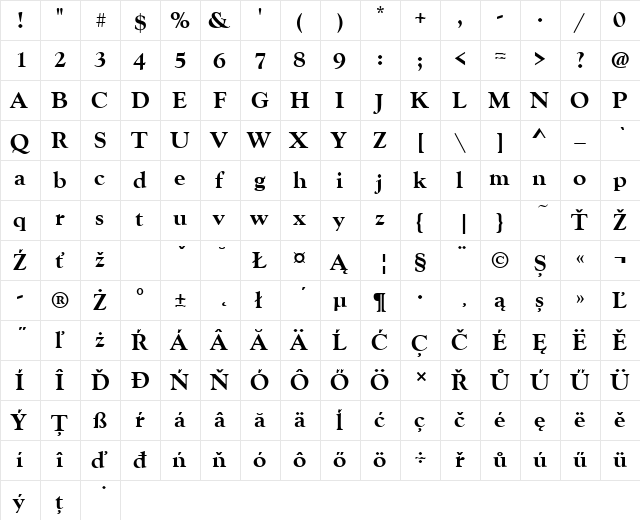
GoudyOldStyTEEExtBol Regular
Design Context for GoudyOldStyTEEExtBol Typeface
GoudyOldStyTEEExtBol offers clean, dependable letterforms without strong stylistic allegiance, making it a practical choice for designers who need flexibility.
Pro Tip: Use GoudyOldStyTEEExtBol in both headline and body roles to test its range before committing to a single application.